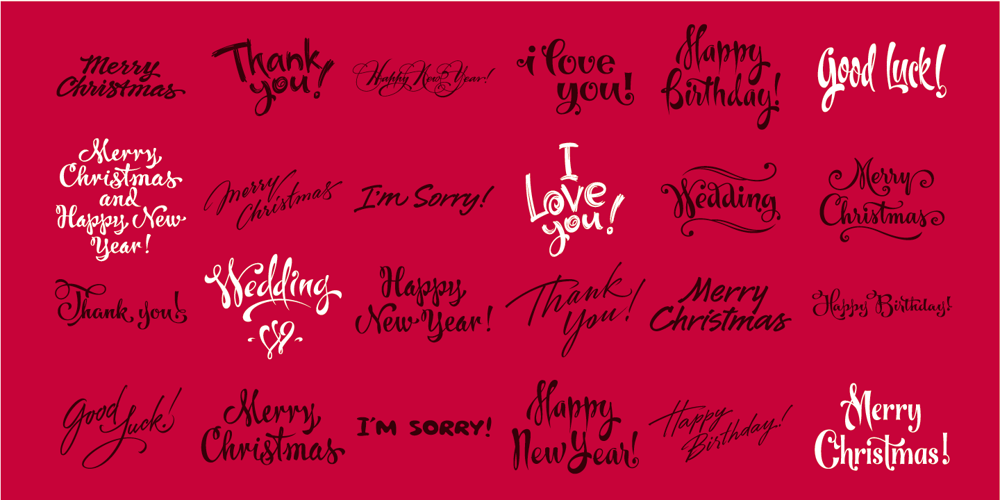
Congratulatory Latin Font Family was designed by Dmitriy Shchetinskiy and published by Dmitriy Shchetinskiy. Congratulatory Latin contains 1 styles and family package options. Congratulatory font consist of 36 calligraphic latin greetings letterings for different event. Letterings are original and handwritten. This font makes it possible to use high quality calligraphy in your projects – greeting cards, invitation cards etc.